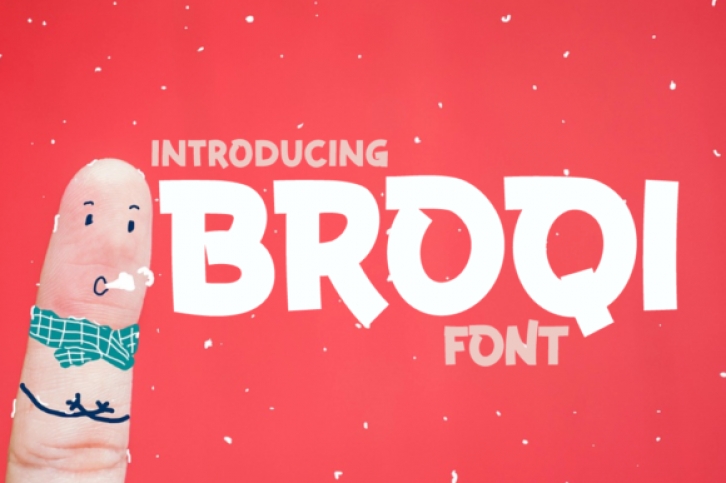
Broqi is a fun and trendy display font. It embodies playfulness and authenticity and is the perfect choice for any children activity or school project. Add this chunky lettered font to your designs and notice how it makes them come alive!